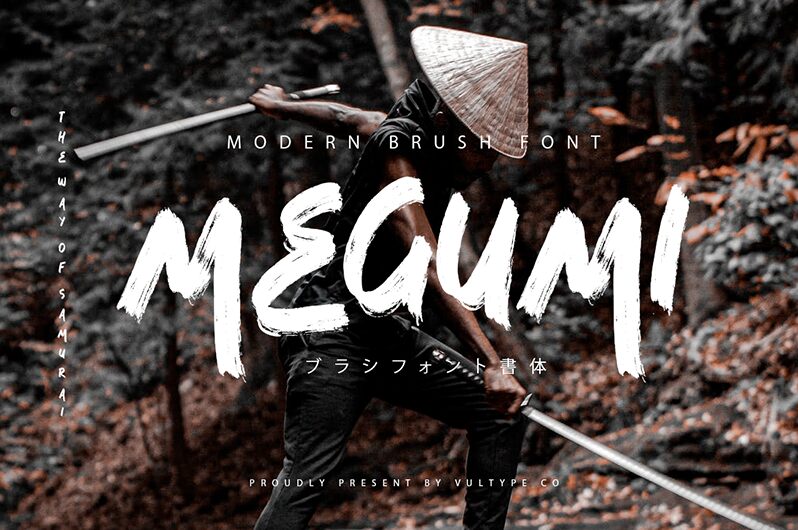
MEGUMI Regular
Megumi by Vultype is a captivating brush font that exudes a raw, expressive energy. Its dynamic strokes and organic fluidity create a sense of movement, evoking a spontaneous and artisanal aesthetic. The irregular shapes and varied line widths lend the font a distinctly handmade quality, adding depth and character to any design. Megumi's bold yet elegant presence commands attention, making it a versatile choice for projects requiring a striking typographic element.
This font's versatility allows it to shine in a variety of applications, from branding and packaging to editorial design and event materials. Its bold, attention-grabbing nature makes it an ideal choice for headlines, logos, and impactful displays, while its softer, more expressive qualities lend themselves well to wedding stationery, greeting cards, and other projects seeking a personal, handcrafted touch.